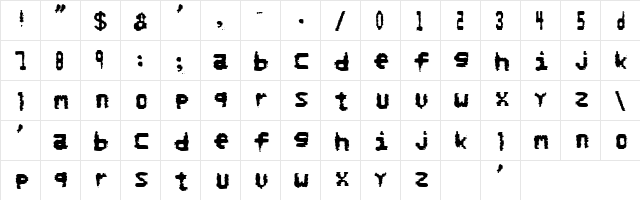
NoRefunds Regular
Design Context for NoRefunds Typeface
NoRefunds trades formality for fun, with bouncy, characterful letterforms that bring warmth and energy to any project.
Font Pairing: Pairs well with a rounded or humanist sans for body copy, maintaining the friendly tone without relying on NoRefunds to carry extended reading.
Pro Tip: Use NoRefunds at larger display sizes where its expressive character can land. Pair with a clean, simple sans for body copy to maintain readability.